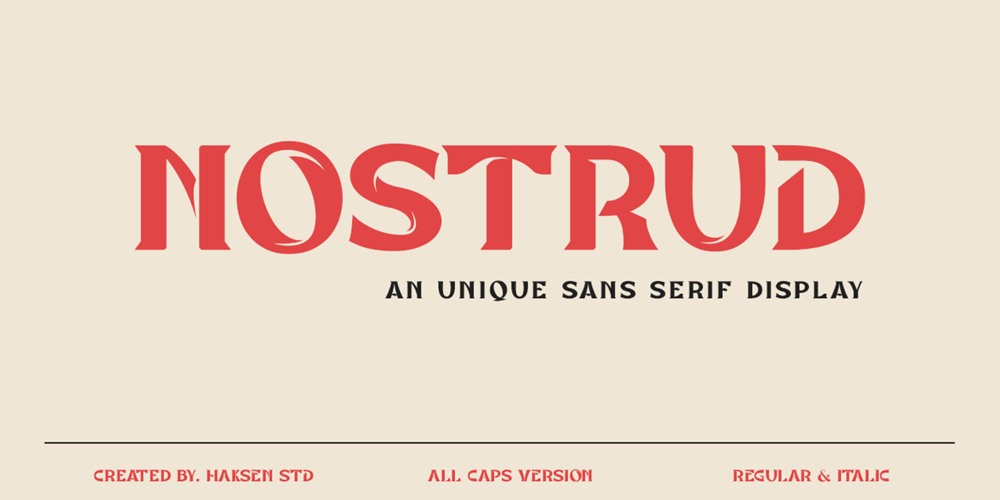
Nostrud Font Family was designed by Sarwo Edhi Prayitno and published by Haksen. Nostrud contains 2 styles and family package options. NOSTRUD is a strong modern sans serif style with All Caps feel nice balanced. Its wide range of uppercase allow versatile design options and works perfectly for headlines, logos, posters, packaging, T-shirts and much more.Recommended to use in Adobe Illustrator or Adobe Photoshop or any software with opentype feature.If you have questions, just send me a message and I’m glad to help.Have a great day,Haksen